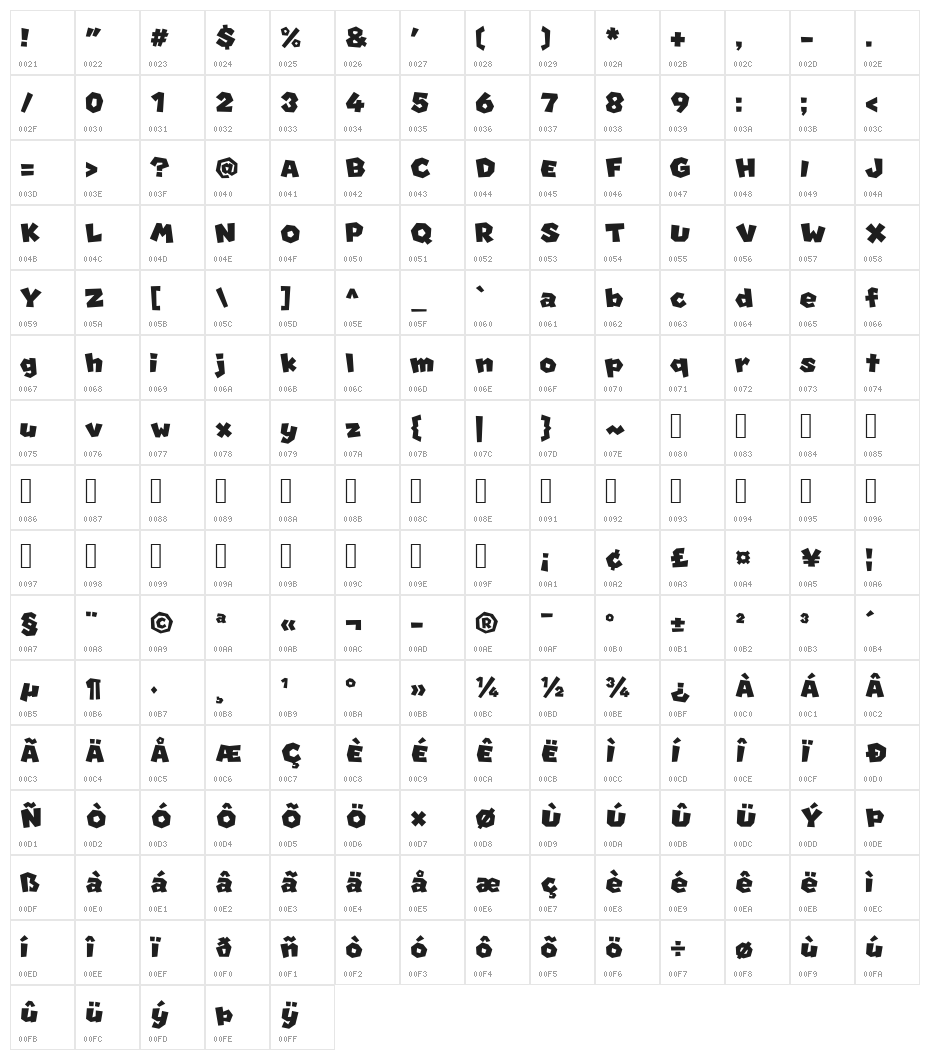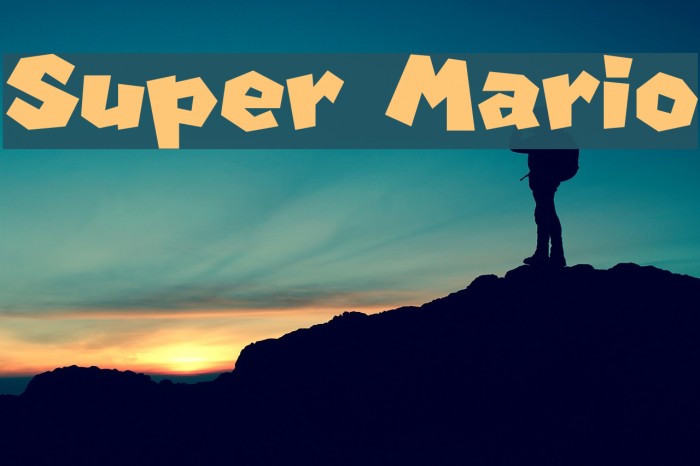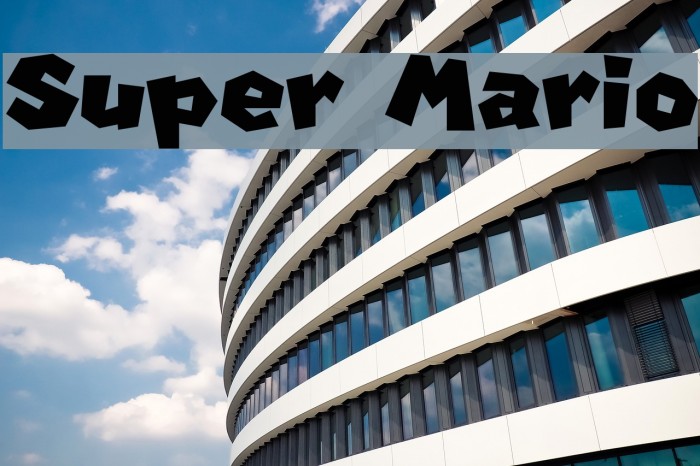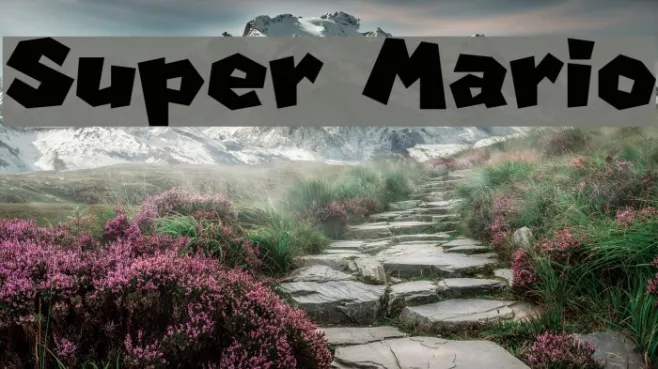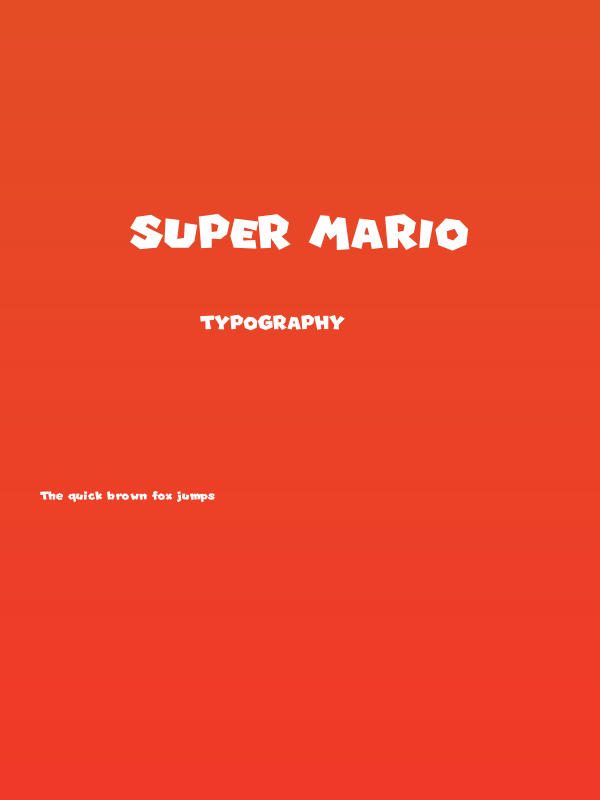
Super Mario Font
Super Mario Description
This font features a bold and playful design with a distinctly geometric and angular style. The characters are heavily stylized, with sharp edges and a blocky appearance that gives them a dynamic and energetic feel. The uppercase and lowercase letters maintain a consistent aesthetic, while the numerals and special characters complement the overall design. The font's unique structure makes it stand out, with each character appearing as if it has been crafted from a series of interlocking shapes. This creates a sense of movement and excitement, making it ideal for projects that require a fun and engaging visual element.
| Overall Style | Playful and Energetic |
| Proposed Projects | Ideal for video game titles, children's book covers, posters, and any project needing a lively and energetic typeface. |